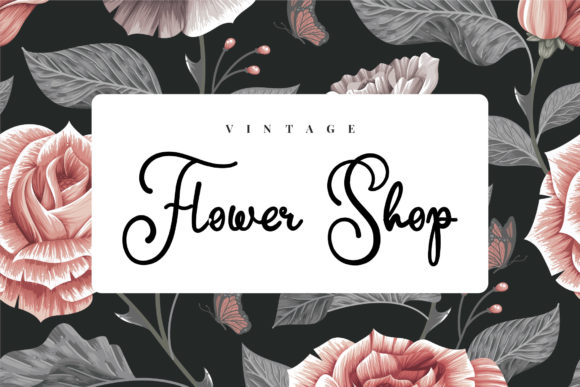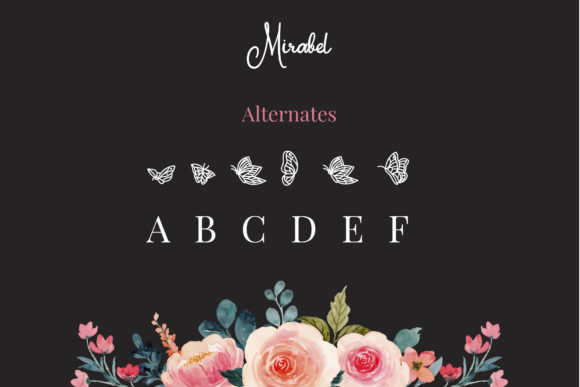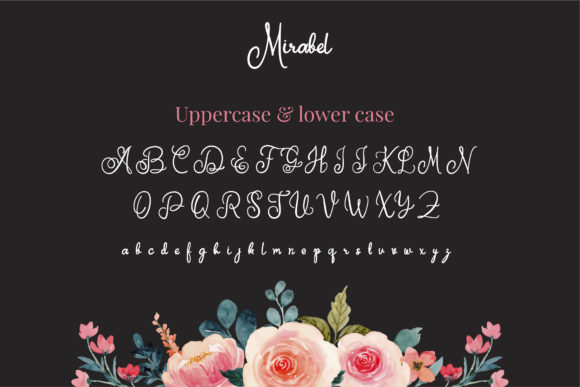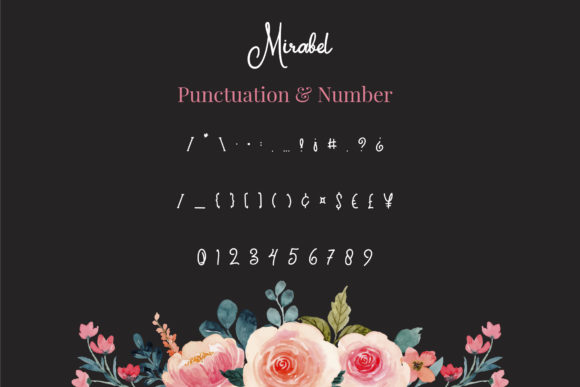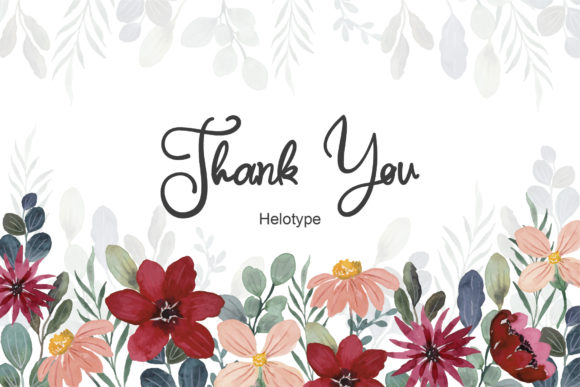
Introduction to Mirabel Font Font
Fonts play a crucial role in design, and the Mirabel Font font is a typeface that brings both character and versatility to any project. Whether you’re working on a branding project, a website, or a print design, the Mirabel Font font offers a unique style that can elevate your work.
Mirabel is a beautiful and stylish script font.
This font is very suitable to be used in gift card designs, t-shirt logos, quotes, product brands, wedding invitation, or various similar projects .
Key Features of Mirabel Font Font
Why Choose Mirabel Font Font?
The Mirabel Font font is more than just a typeface – it’s a design tool that helps you communicate your message with style and clarity. Its unique character set and versatile design make it suitable for a wide range of applications, from elegant invitations to bold headlines.
With its carefully crafted letterforms and balanced proportions, the Mirabel Font font ensures readability and visual appeal across all mediums.
What makes Mirabel Font font special?
The Mirabel Font font stands out with its unique design, exceptional readability, and versatility across various design applications.